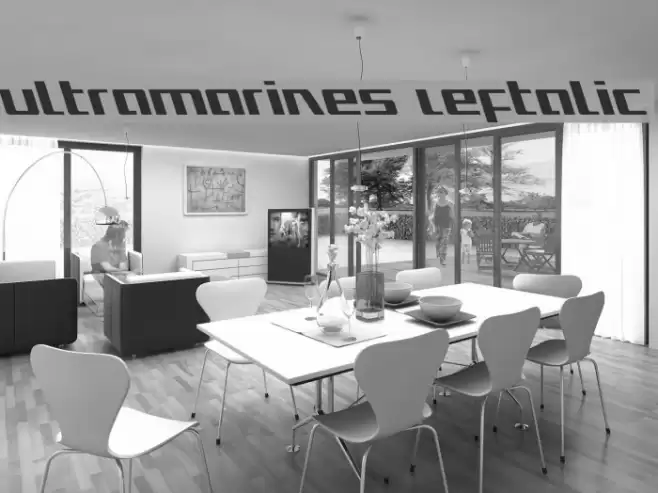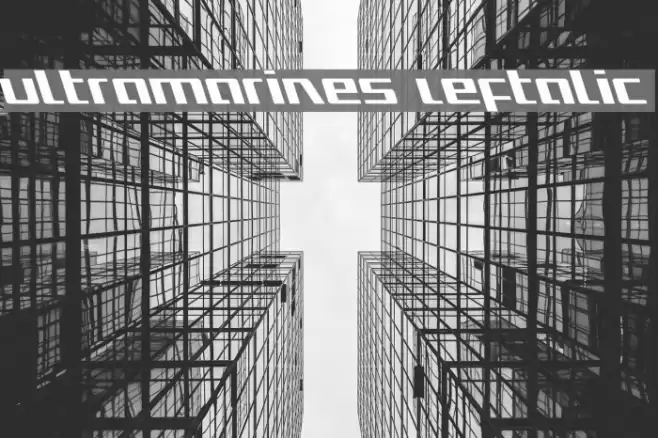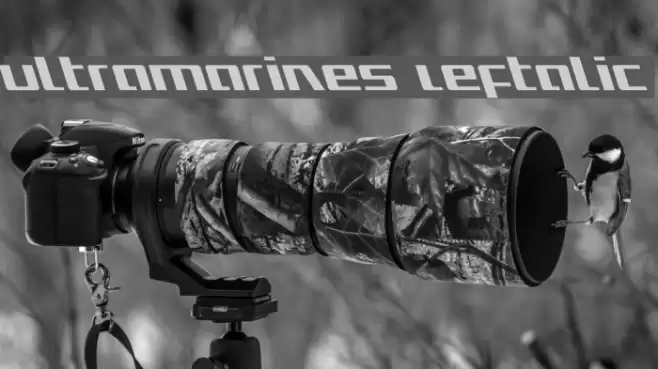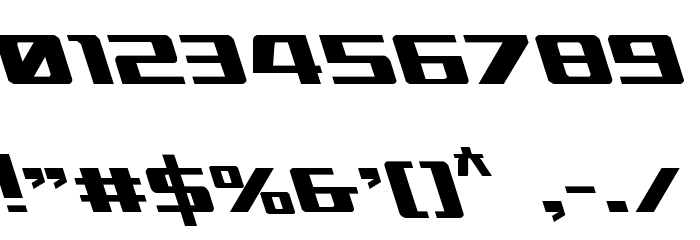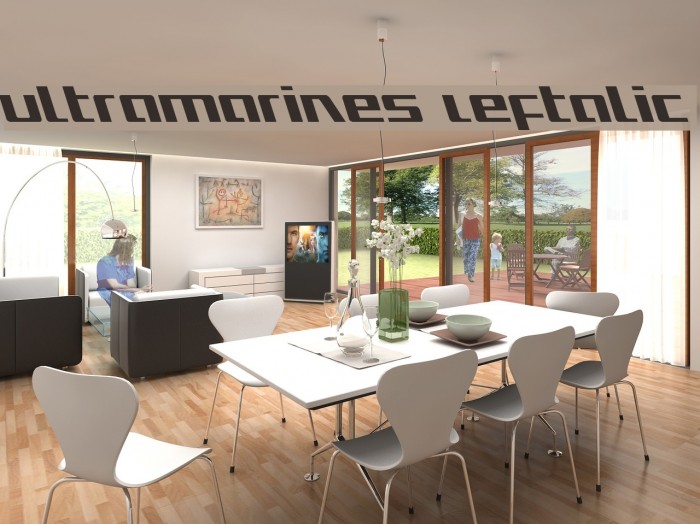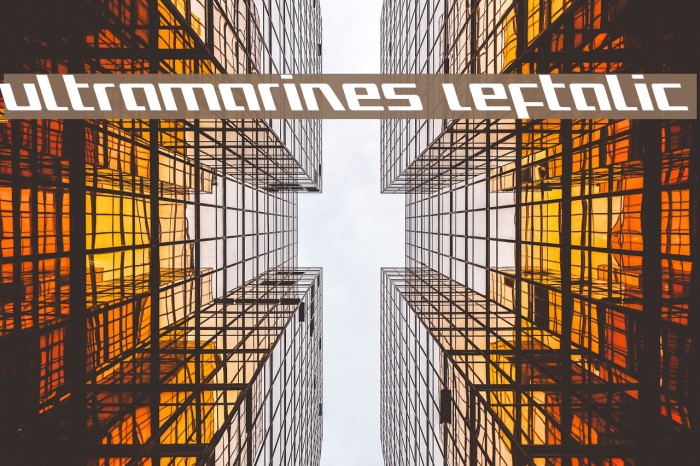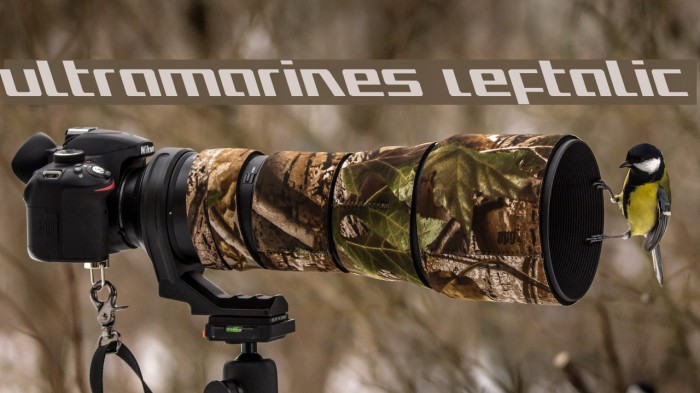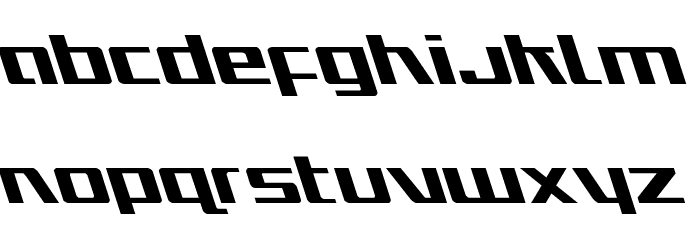
Ultramarines Leftalic Font
Ultramarines Leftalic Description
This font features a bold and angular design with a futuristic and dynamic appearance. The characters are slightly slanted, giving a sense of motion and energy. The geometric shapes and sharp edges create a strong visual impact, making it ideal for attention-grabbing designs. The uppercase and lowercase letters maintain a consistent style, with the lowercase being slightly more compact. Numbers and special characters follow the same angular theme, ensuring uniformity across all elements. The overall style is modern and assertive, suitable for projects that require a bold statement.
A bold, angular font with a futuristic and dynamic style from Uncategorized fonts.
- Proposed Projects: Ideal for sci-fi themed designs, video game titles, sports branding, and technology-related projects.